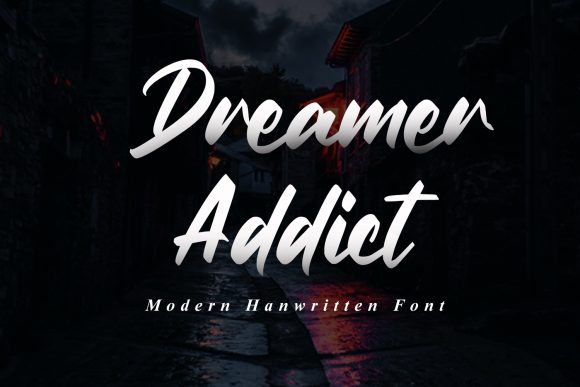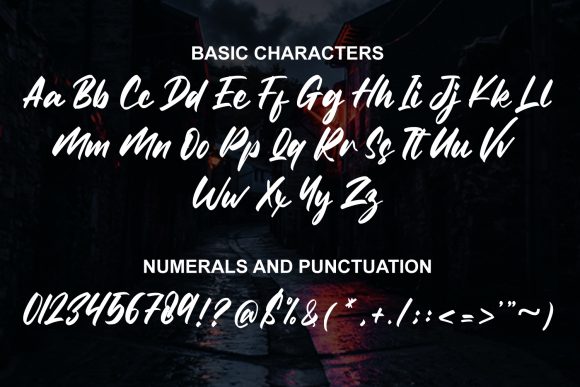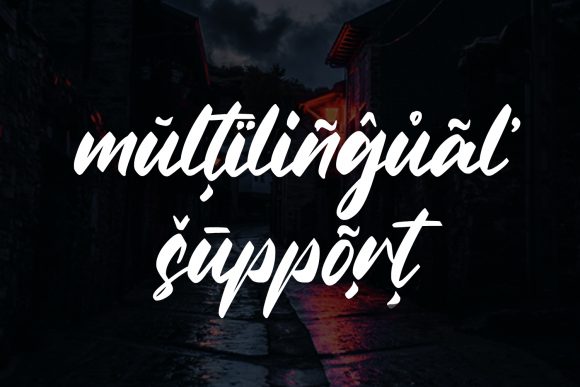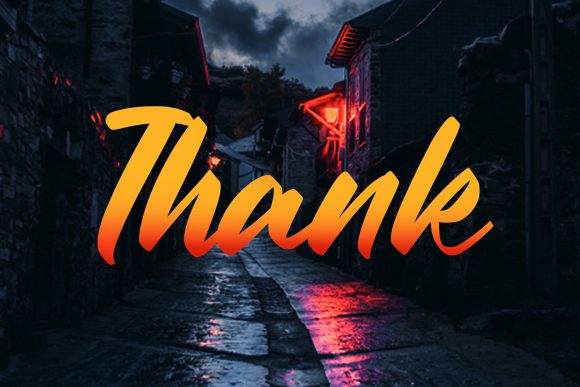
About Dreamer Addict Font
Dreamer Addict is a daring script font with a modern look. It is the perfect font for making original and outstanding designs. Add it confidently to your projects, and you will love the results. This font is PUA encoded which means you can access all of the cute glyphs and swashes with ease! It also features a wealth of special features including alternate glyphs and ligatures.